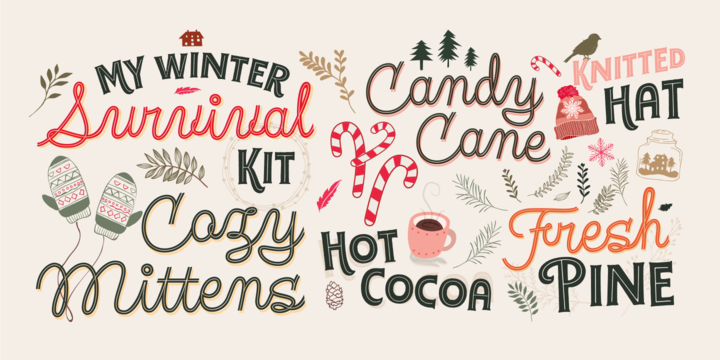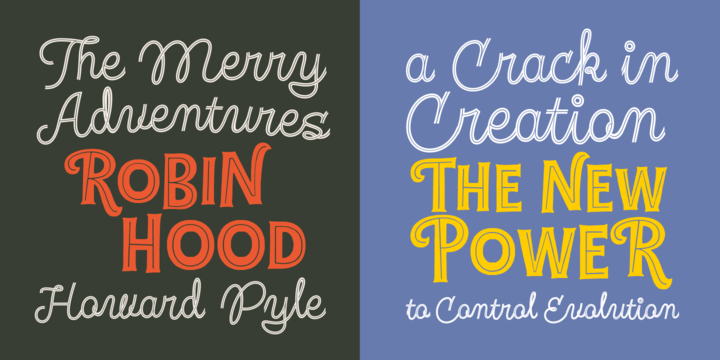
A modern and funny pack with 4 handmade script and sans fonts that started in the sketchbook and finished in the computer.
Fregata has a unique and beatiful look to be used in many design projects as: cover books, labels, logos & branding, advertisements & product design.
When you get this pack you will receive 4 font files, designed to work as perfect companions or simply as strong standalone typefaces.
Fregata Script Inline: A unique style with a different look thanks to the line that connects the whole typographic system.
More Fregata Sans: Includes 3 handmade fonts variables (Fregata Sans 1, Fregata Sans 2, Fregata Sans 3) with small rounded serifs making it a modern and fun typography.
Fregata is equipped with ligatures and all stylistic alternates, extended character set to support Central and Eastern European as well as Western European Languages.